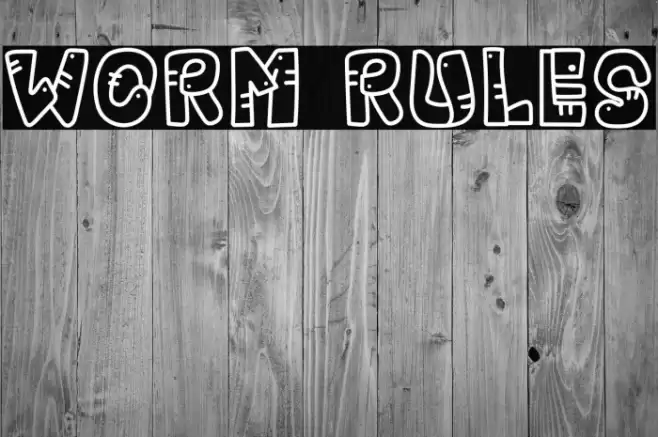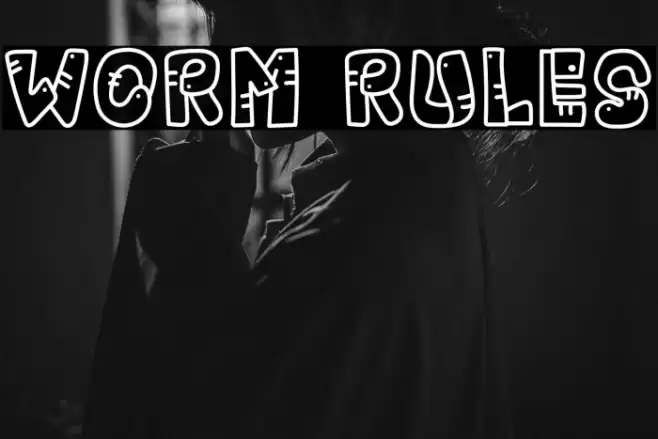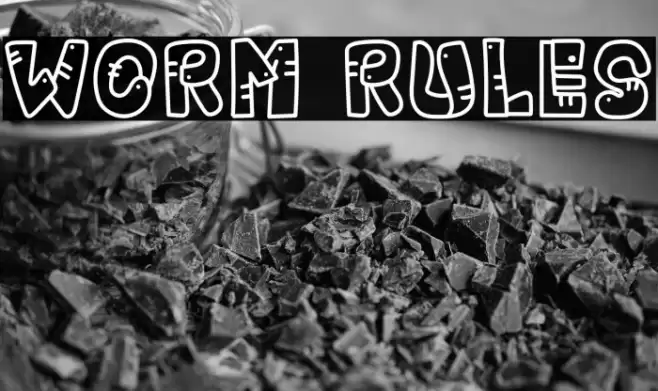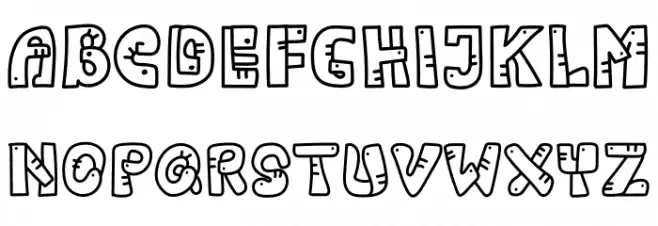
Worm Rules Font
Worm Rules Description
This playful and quirky font features bold, cartoonish letters with a unique worm-like design. Each character is outlined with a thick black line, giving it a hand-drawn appearance. The letters are filled with small, irregular shapes that resemble the segments of a worm, adding a whimsical touch. The font is highly decorative, making it ideal for projects that require a fun and engaging look. Its distinctive style is perfect for children's books, playful branding, or any creative project that seeks to capture attention with its lively and imaginative design.
A playful, cartoonish font with worm-like, segmented letters outlined in bold black from Uncategorized fonts.
- Font: Worm Rules
- Proposed Projects: Ideal for children's books, playful branding, posters, and creative projects needing a fun, engaging look.